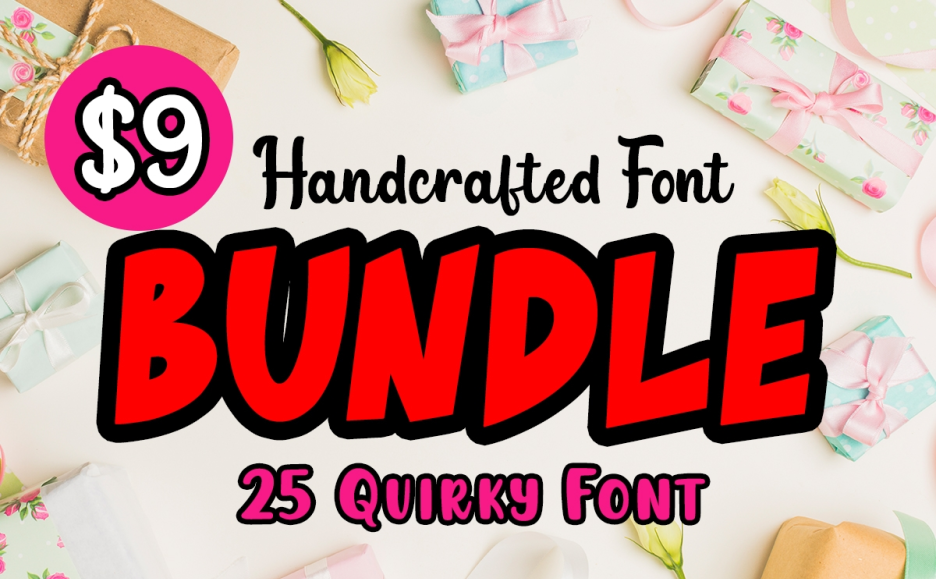
Introducing the Handcrafted Font Bundle, a carefully curated collection designed for those who appreciate unique typography. This bundle features a variety of font styles, including script, serif, and sans-serif, each bringing its own character and charm to your projects.
- Multiple font weights for versatility
- Stylish script fonts for elegant designs
- Clean sans-serif options for modern aesthetics
- Distinctive serif fonts for a classic touch
- Perfect for creating logos, invitations, and posters
- Ideal for web design and user interfaces
- Use in print projects for a handcrafted feel